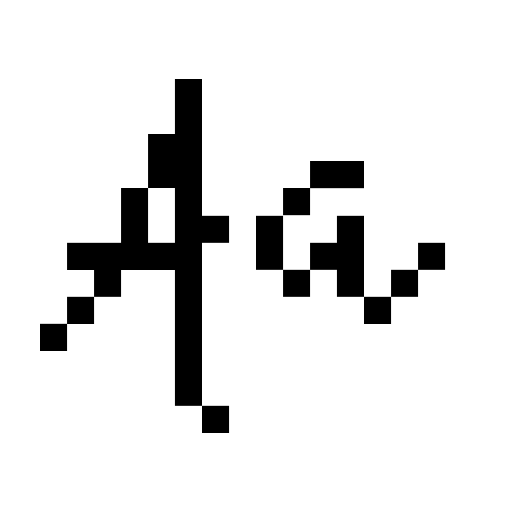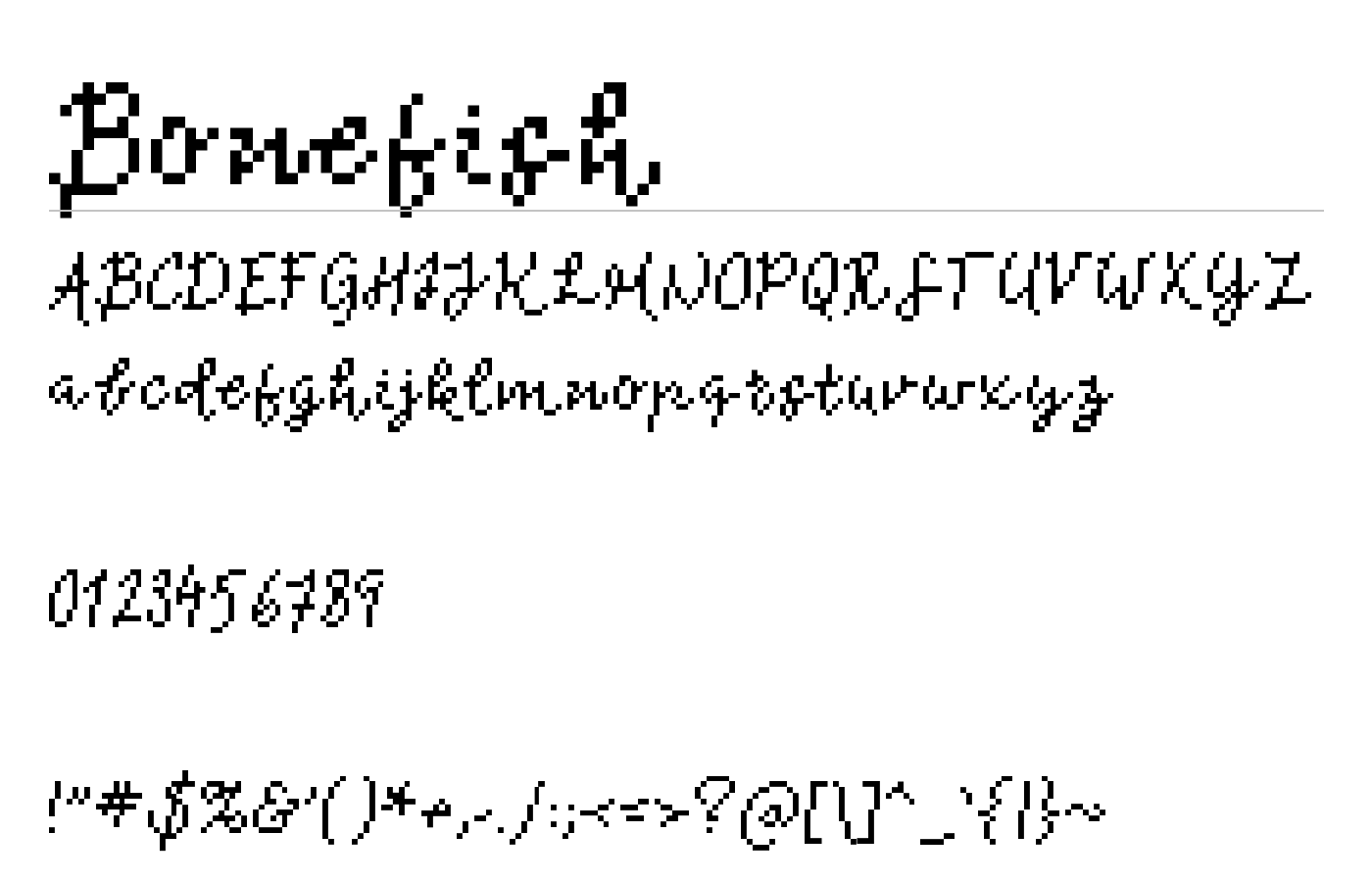
Bonefish is a delicate, script-style font with a handwritten, slightly whimsical feel that features light, flowing strokes and a narrow width. Its elegant yet casual design makes it ideal for creative projects that seek a personal touch, such as invitations, branding for boutique or artisanal products, and stylish editorial headlines. This font’s charming, airy letterforms bring warmth and uniqueness while remaining easily readable in display sizes.
Bonefish Font
About Bonefish Font